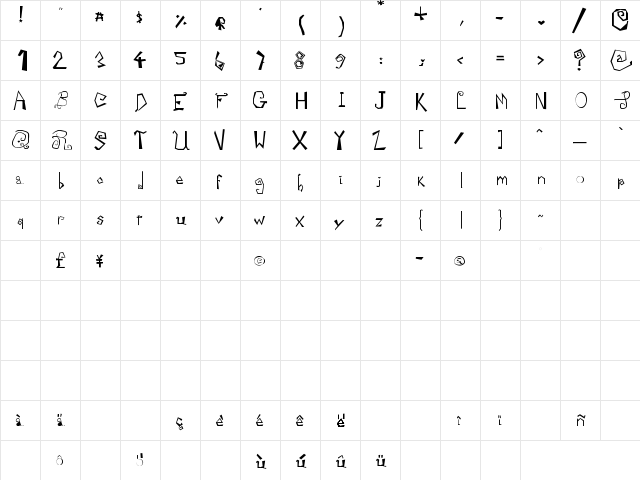
Michel gelly's Script SP Regular Font Preview
Michel gelly's Script SP Regular
Design Context for Michel gelly's Script SP Typeface
Michel gelly's Script SP flows with the natural rhythm of handwritten lettering, making it ideal for designs that call for warmth and personal expression.